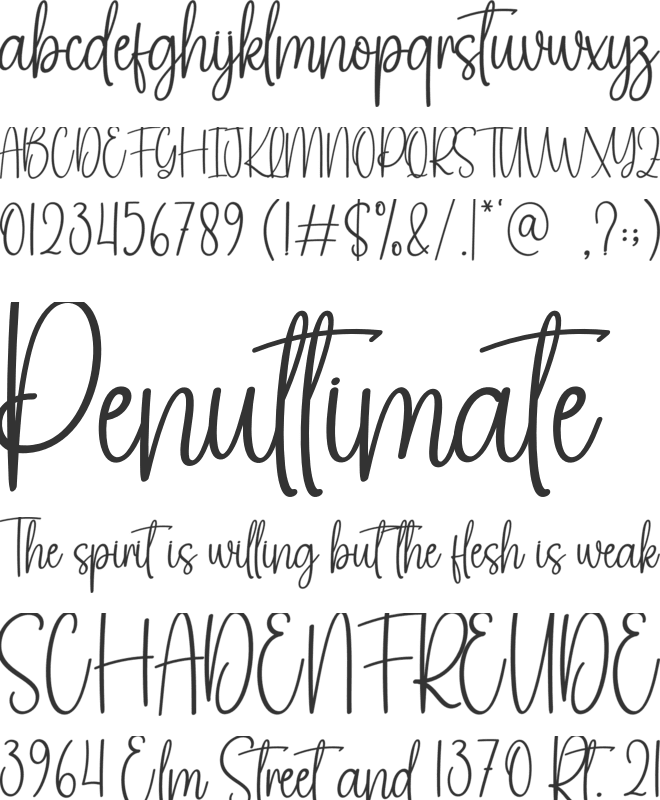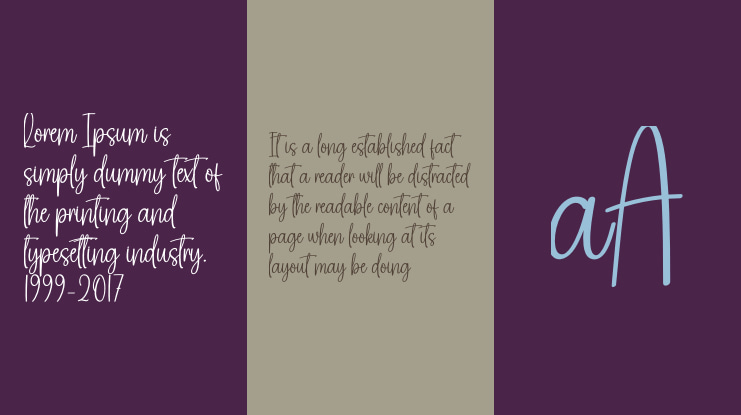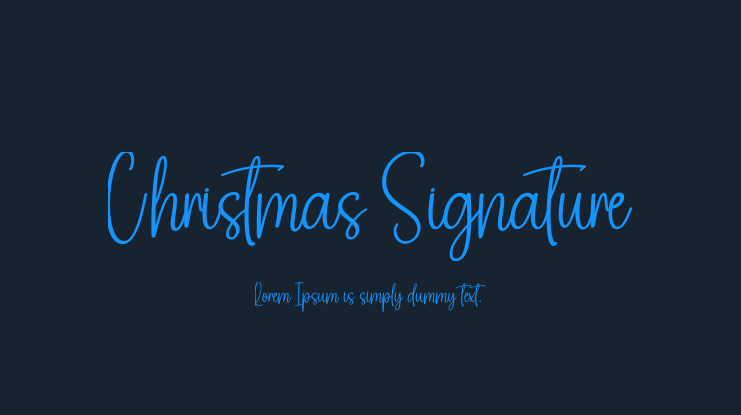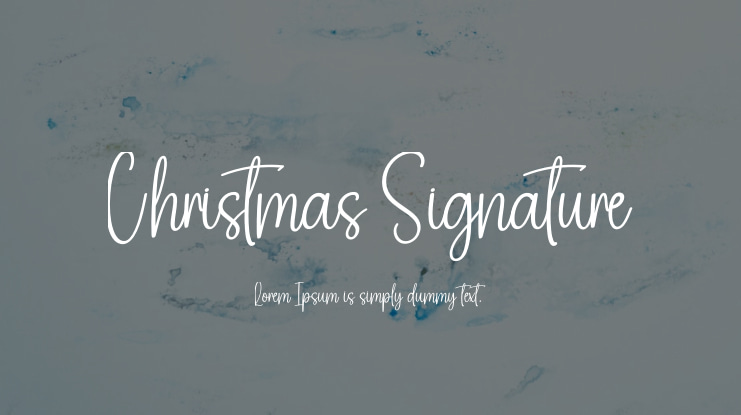
Christmas Signature Font
The latest style letters are perfect for:
- Wall displays
- Wedding invitations
- Social media post logos
- Advertisements
- Product packaging
- Product designs
- Labels
- Photography
- Watermarks
- Invitations
- Stationery
- Any project that requires tasteful handwriting